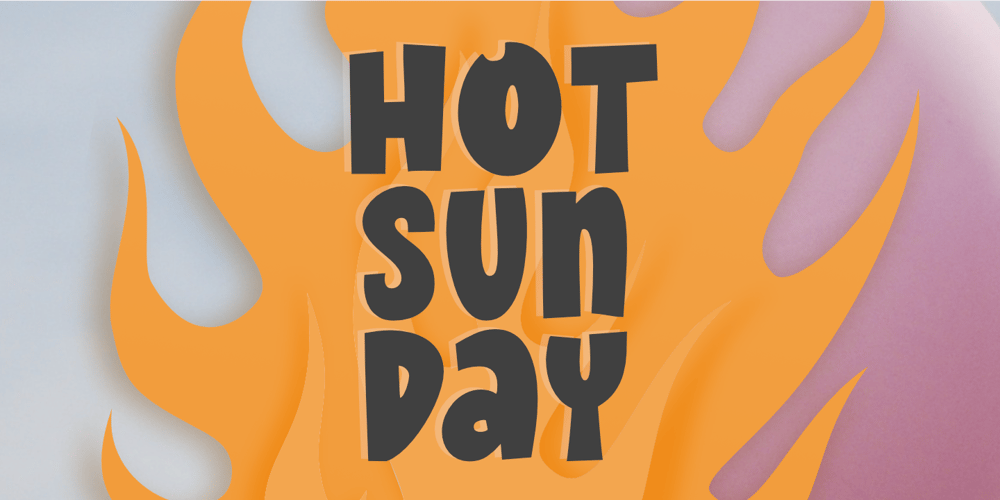
Hot Sunday Font Family was designed by Aldy Sidik and published by Epiclinez. Hot Sunday contains 1 styles and family package options. Introducing Hot Sunday, a fresh and playful font ideal for creative headlines. Whether you’re designing a logo or crafting an eye-catching poster, this font will energize your designs with its fun personality. Thank You.